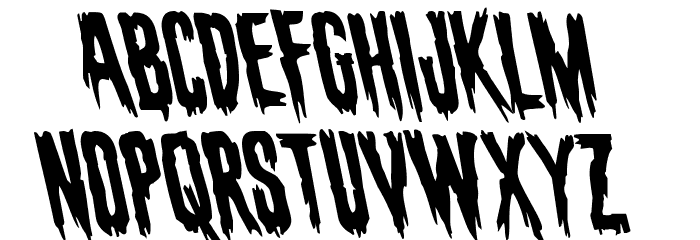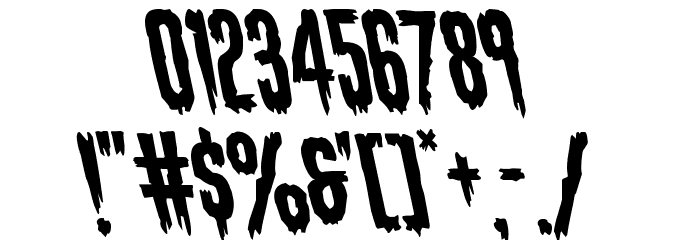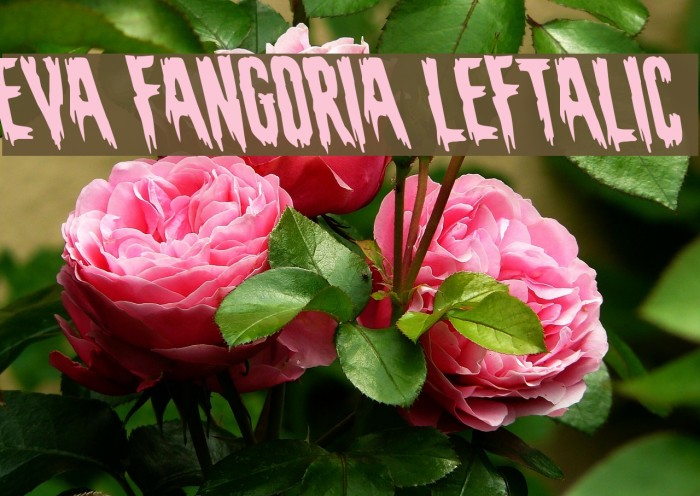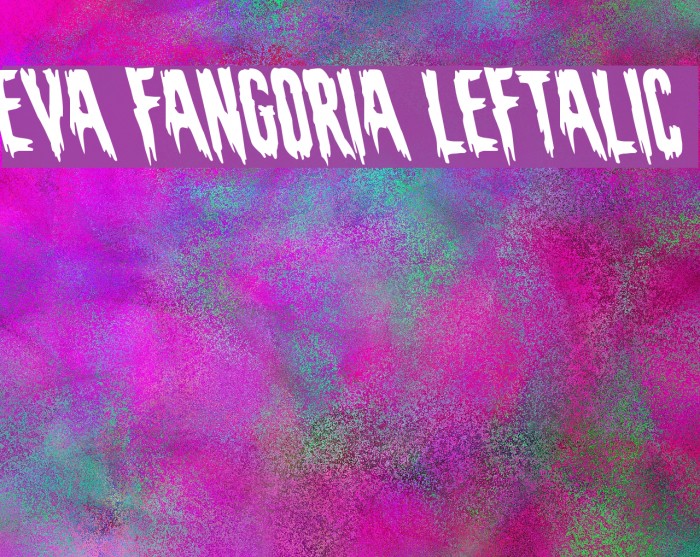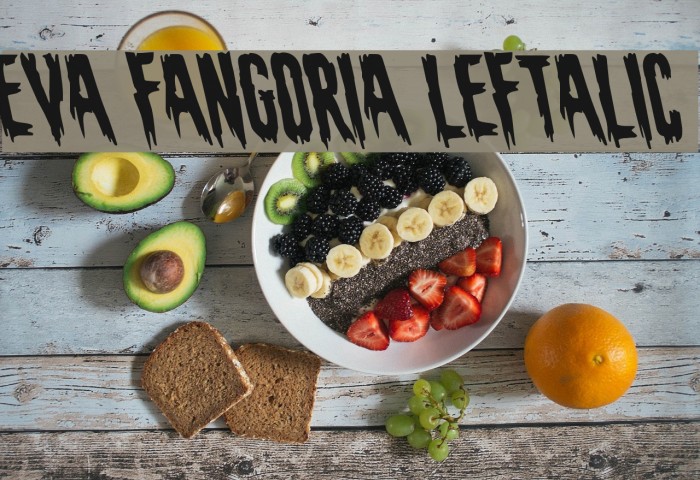
Eva Fangoria Leftalic Font
This font features a bold, jagged style with sharp edges and irregular contours, giving it a distressed and eerie appearance. The letters are heavily stylized, with exaggerated angles and a sense of movement, as if they are being blown by the wind. This creates a dynamic and unsettling effect, perfect for horror or Halloween-themed projects. The uppercase and lowercase letters maintain a consistent design, while the numbers and special characters follow the same jagged aesthetic. The overall look is both eye-catching and intimidating, making it ideal for dramatic and thematic uses.
A bold, jagged font with a distressed, eerie style.
- Proposed Projects: Ideal for horror movie posters, Halloween invitations, spooky event flyers, and themed merchandise.